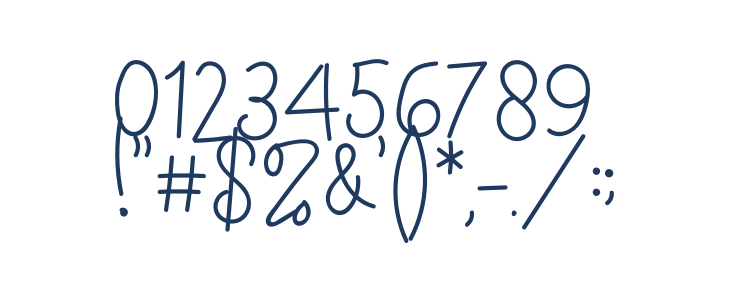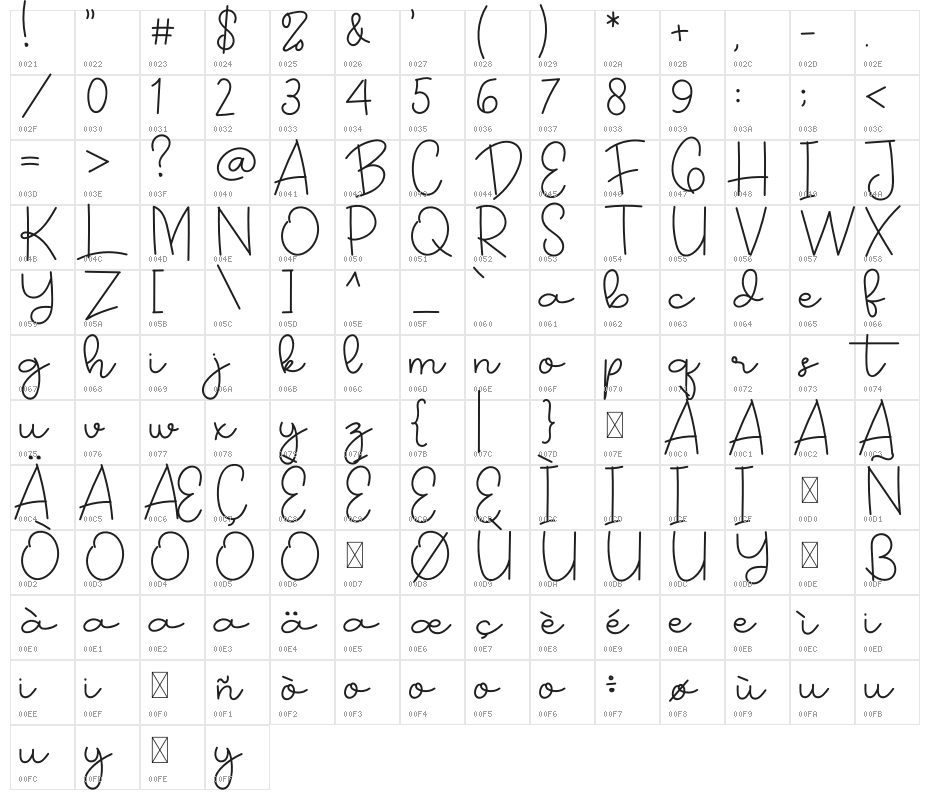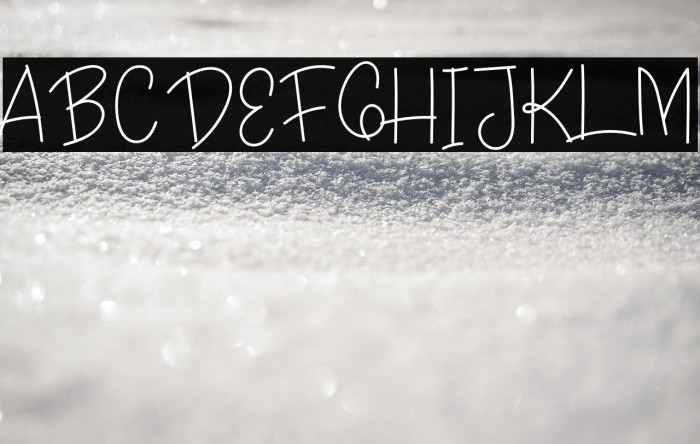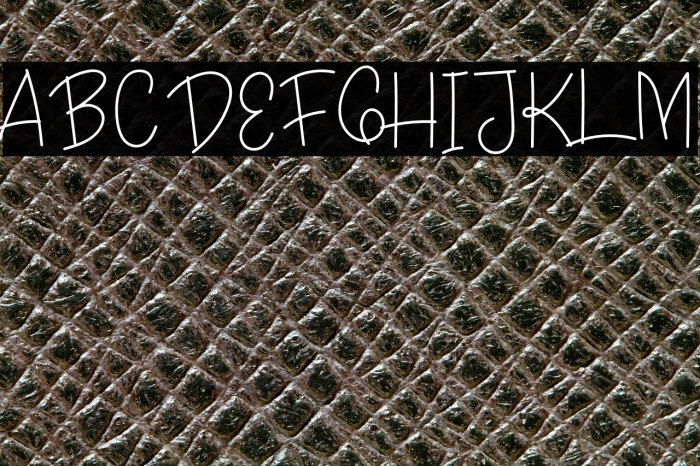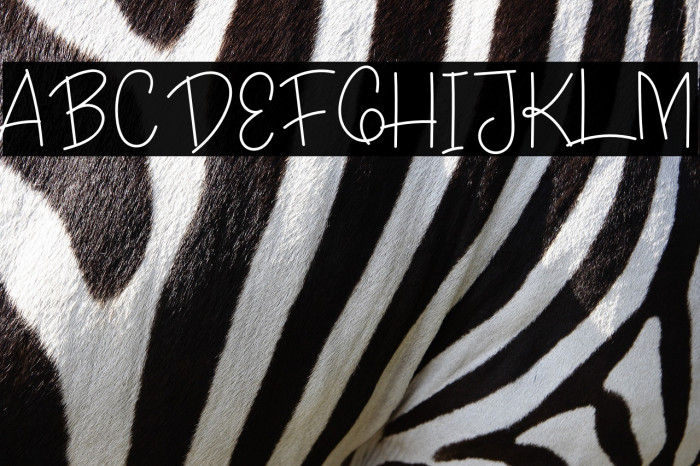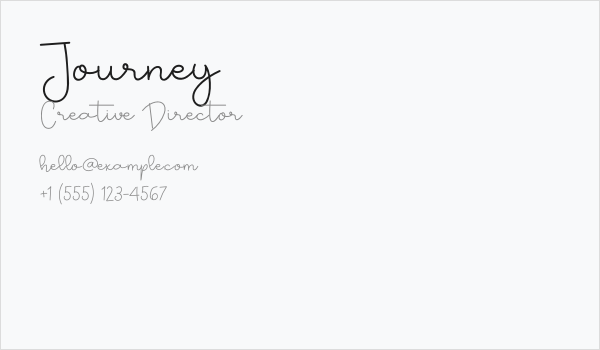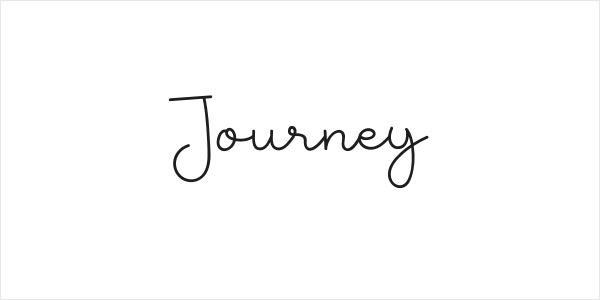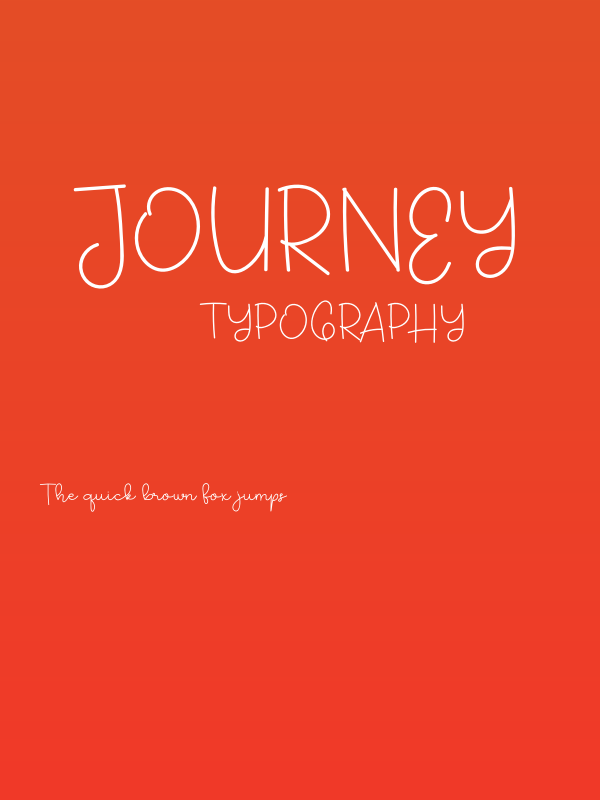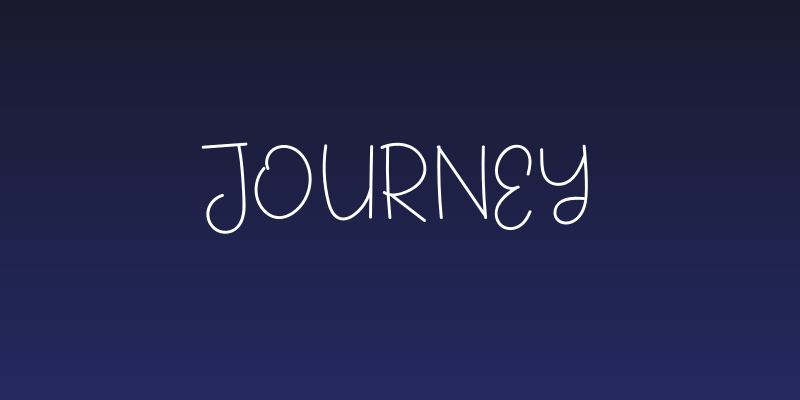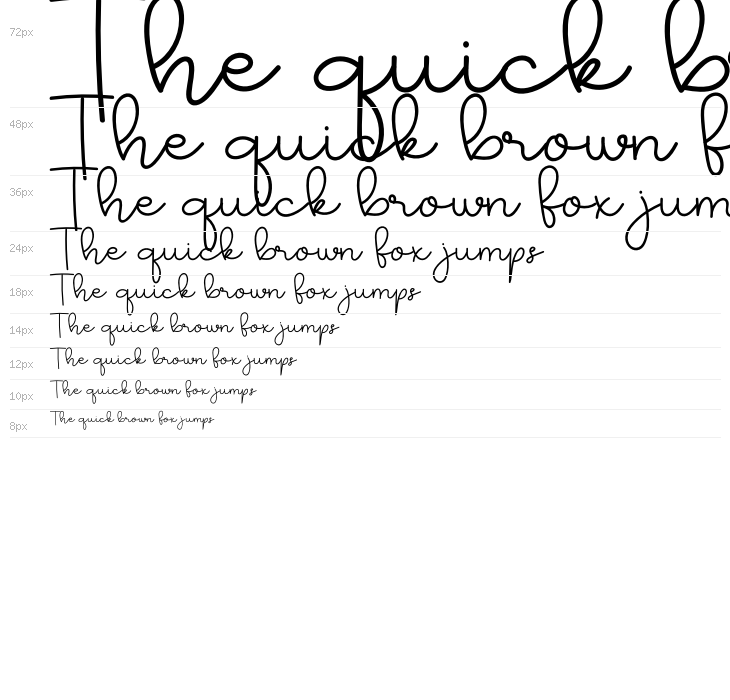
Journey Font
Journey Description
This font features a playful and casual handwritten style, characterized by its smooth, flowing lines and slightly irregular shapes. The uppercase letters are tall and narrow, with a whimsical touch that adds a sense of movement and energy. The lowercase letters are more rounded and connected, creating a cohesive and friendly appearance. The numerals are consistent with the overall style, maintaining the same playful and informal feel. Special characters are well-integrated, enhancing the font's versatility. This font is ideal for projects that require a personal and approachable touch.